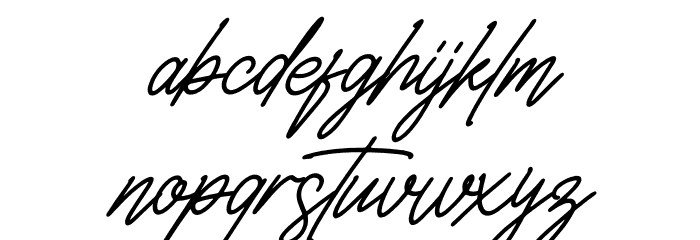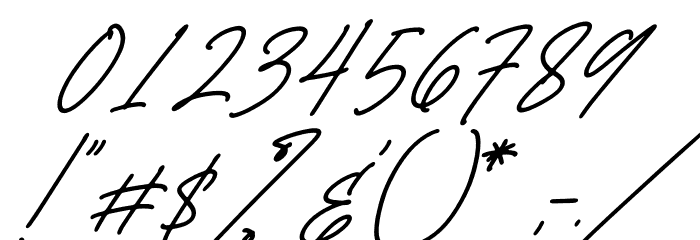
Belistaria Signature Italic Font
This font exudes elegance and sophistication with its flowing, cursive style. The letters are interconnected, creating a seamless and fluid appearance that mimics natural handwriting. The uppercase letters are tall and slender, while the lowercase letters maintain a consistent height, enhancing readability. The numbers and special characters are designed with the same graceful curves, ensuring a cohesive look across all text. This font is perfect for adding a personal touch to any project, with its delicate lines and artistic flair.
A graceful, cursive font with elegant, flowing lines.
- Font: Belistaria Signature Italic
- Proposed Projects: Ideal for wedding invitations, personal branding, elegant logos, and artistic projects.
- Category: Script
- Character Spacing: Tight
- Overall Style: Elegant
- Use Case: Logos, Invitations, Personal branding